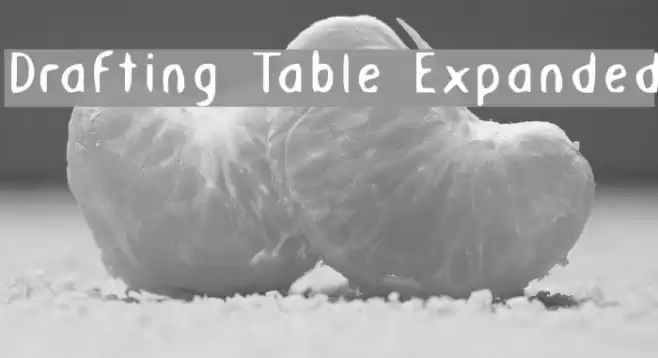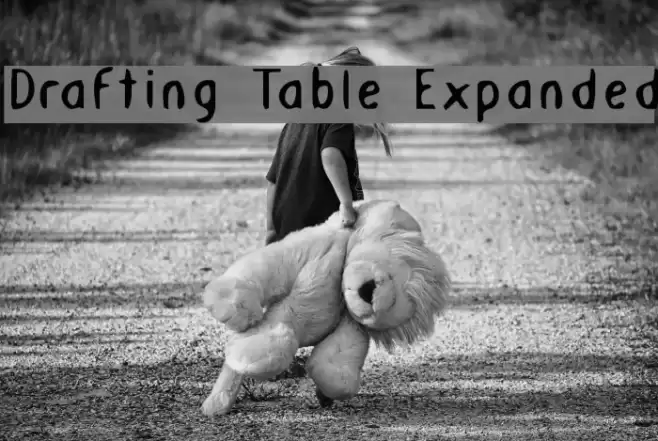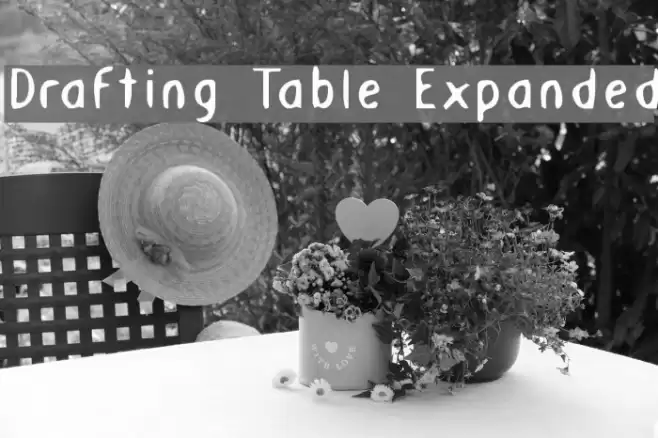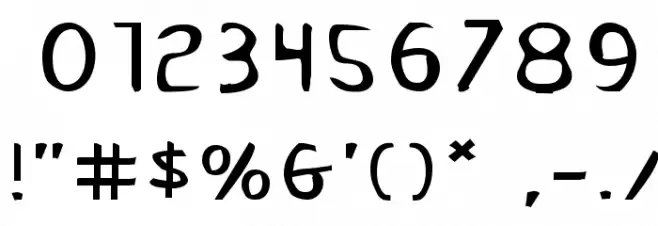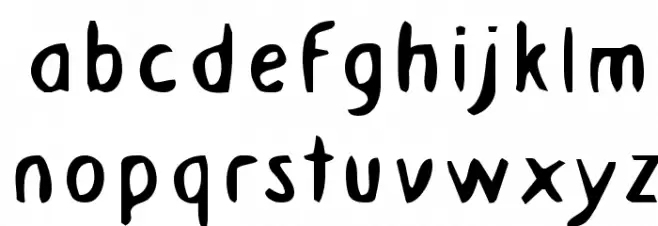
Drafting Table Expanded
This font features a playful and informal style, characterized by its hand-drawn appearance. The letters have a slightly uneven baseline, adding to its casual and approachable feel. The strokes are moderately thick, providing good legibility while maintaining a whimsical charm. Each character has a unique, slightly quirky shape, giving the font a distinctive personality. The numerals and special characters follow the same playful design, ensuring consistency across all glyphs. This font is perfect for projects that require a friendly and creative touch.
A playful, hand-drawn font with a casual and whimsical style.
- Proposed Projects: Ideal for children's books, creative posters, greeting cards, and informal branding.
- Overall Style: Casual
- Use Case: Headlines, Logos, Informal Text